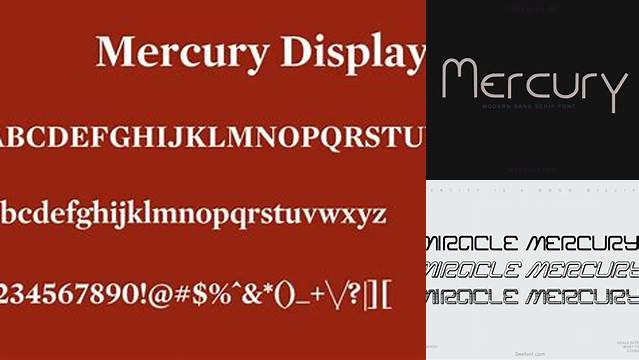
Hey guys! Ever stumbled upon a font that just clicks? That’s Mercury Font for me! It's sleek, it's stylish, and the best part? You can often find it for free! But navigating the world of free fonts can be tricky, so let's dive into everything you need to know about Mercury Font, where to find it without breaking the bank, and how to use it like a pro. We will cover everything from licensing to pairings, making sure you’re set to create some stunning designs.
What is Mercury Font?
Mercury Font is more than just a typeface; it’s a statement. Often characterized by its clean lines and modern aesthetic, it lends itself beautifully to a variety of projects. Whether you're designing a website, crafting a logo, or working on a print project, understanding the nuances of the Mercury Font family is crucial. It’s not just about choosing a font; it’s about selecting the right tool to communicate your message effectively. Understanding its history and the design principles behind it can help you leverage its strengths in your projects. The subtle curves and balanced letterforms of Mercury Font give it a sophisticated yet approachable feel, making it a versatile choice for designers. It's this adaptability that makes it a favorite among both seasoned professionals and those new to the design world. Knowing the specific traits of the Mercury Font you're using, such as its weight and style, will enhance your designs even further. So, let's explore where this font shines and how you can make the most of it.
Using Mercury Font in Graphic Design Projects
Now that you’ve got Mercury Font installed, let’s talk about how to use it effectively in your graphic design projects. This font family shines in various applications, from website headers to print materials. Its clean lines and modern feel make it a versatile choice, but it’s essential to consider the context of your design. For logos, Mercury Font can convey a sense of sophistication and professionalism. In website design, it works well for headings and body text, provided you choose the right weight and size for readability. In print, Mercury Font can add a touch of elegance to brochures, posters, and even business cards. Experiment with different weights and styles to see what works best for your specific project. Pair it with other fonts that complement its style (more on that later!). Remember, the goal is to create a harmonious visual hierarchy that guides the viewer’s eye. Avoid using too many fonts in one design, as this can create a cluttered and confusing look. With a little practice and a keen eye, you’ll be able to leverage Mercury Font to create stunning designs that capture attention and communicate your message effectively.
Pairing Mercury Font with Other Fonts
Font pairing is an art, and when done well, it can elevate your design from good to great. Mercury Font has a distinct personality, so finding the right companion fonts is key. The goal is to create a balance between contrast and harmony. For a classic and readable combination, try pairing Mercury Font with a serif font like Georgia or Garamond for body text. The contrast in styles adds visual interest while maintaining clarity. If you’re looking for a more modern and minimalist feel, consider pairing Mercury Font with a sans-serif font like Open Sans or Lato. These fonts share a similar clean aesthetic, creating a cohesive look. Experiment with different font weights and sizes to create visual hierarchy and guide the reader's eye. Tools like FontPair and Typewolf can also provide inspiration and suggestions for font combinations. Avoid pairing fonts that are too similar, as this can make your design look bland. The right font pairing can enhance the readability and overall aesthetic of your design. So, take the time to explore different combinations and find the perfect match for Mercury Font. With a bit of experimentation, you'll discover pairings that make your designs truly shine.
Mercury Font Alternatives: Similar Fonts to Consider
Sometimes, you might need a font that captures the essence of Mercury Font but offers a slight twist or is available under a different license. Fortunately, there are several excellent alternatives that share a similar aesthetic. Fonts like Montserrat, Raleway, and Lato are all great sans-serif options that offer clean lines and a modern feel. These alternatives are widely available and often come with multiple weights and styles, giving you plenty of flexibility in your designs. Another option is to explore the Google Fonts library, which has a vast collection of free, high-quality fonts that are easy to use in web projects. When choosing an alternative, consider the specific needs of your project. Do you need a font with extensive language support? Are you looking for a font with a specific weight or style? By carefully evaluating your requirements, you can find an alternative that fits perfectly. Remember, the goal is to achieve a similar visual effect while meeting your project's unique needs. Exploring these alternatives can expand your font library and give you even more options for your design work. Don't be afraid to experiment and find a font that truly resonates with your vision.
Mercury Font in Logo Design
When it comes to logo design, the choice of font can make or break the overall impact. Mercury Font, with its modern and clean lines, is an excellent option for creating logos that convey sophistication and professionalism. Its versatility allows it to adapt to various brand identities, from tech startups to creative agencies. The key is to use Mercury Font strategically. Consider the overall tone and message of your brand. If you’re aiming for a sleek and minimalist look, use a lighter weight of the font. For a bolder statement, opt for a heavier weight. Pay attention to kerning and letter spacing to ensure that the logo is legible and visually appealing. A well-crafted logo using Mercury Font can create a lasting impression. Think about how the font will look in different sizes and contexts, such as on a website, business card, or signage. Experiment with different color combinations to enhance the visual impact. A logo is often the first impression a brand makes, so choosing the right font is crucial. With its timeless appeal and adaptability, Mercury Font can help you create a logo that stands out and accurately represents your brand.
Mercury Font for Website Design
In the realm of web design, typography plays a crucial role in user experience and visual appeal. Mercury Font can be a valuable asset in creating websites that are both functional and aesthetically pleasing. Its clean and modern aesthetic makes it suitable for headings, body text, and navigation menus. When using Mercury Font for website design, prioritize readability. Choose a font size and weight that ensures the text is easy to read on different screen sizes. Pay attention to line height and letter spacing to improve legibility. For headings, Mercury Font can make a bold statement and draw the user's eye. In body text, it provides a clean and professional look that enhances the overall reading experience. Consider using different weights and styles to create visual hierarchy and guide the user through the content. Pair Mercury Font with complementary fonts to add visual interest without sacrificing clarity. Ensure that the font loads quickly to avoid slowing down your website's performance. A well-chosen font can significantly enhance the user experience on your website. Mercury Font, with its versatility and modern appeal, is a great choice for creating a website that is both visually appealing and user-friendly.
Future Trends in Typography and Mercury Font
The world of typography is constantly evolving, with new trends and technologies shaping the way we use fonts in design. Keeping an eye on future trends can help you stay ahead of the curve and use Mercury Font in innovative ways. Variable fonts are gaining popularity, allowing for greater flexibility and control over font styles. Experiment with using variable fonts in your designs to create unique and dynamic typography. Bold and expressive typography is becoming increasingly popular, with designers using larger font sizes and bolder weights to make a statement. Explore using Mercury Font in bold and unexpected ways. Geometric and minimalist fonts are also trending, reflecting a desire for clean and simple designs. Consider using Mercury Font in minimalist designs to create a modern and sophisticated look. Accessibility is becoming an increasingly important consideration in typography, with designers focusing on creating fonts that are legible and inclusive. Use Mercury Font in a way that is accessible to all users, including those with visual impairments. By staying informed about future trends in typography, you can use Mercury Font in innovative and impactful ways, ensuring that your designs are both visually appealing and effective. So stay tuned and keep designing!